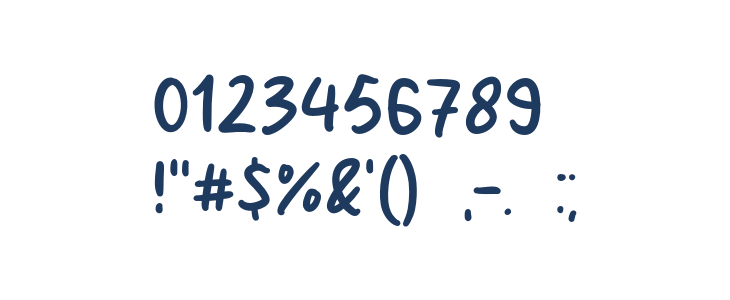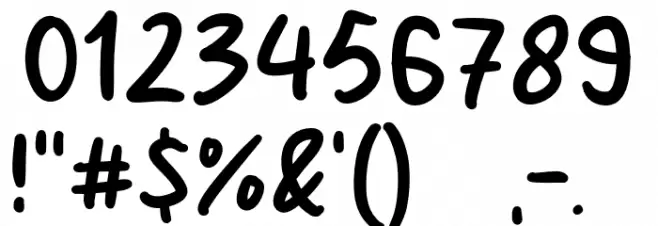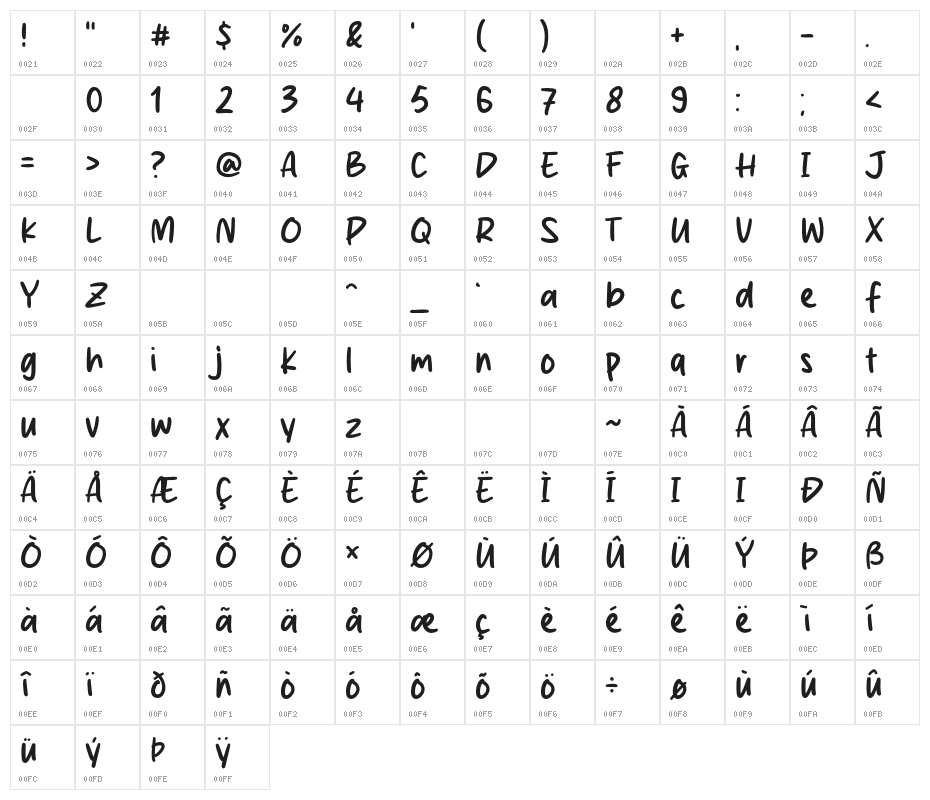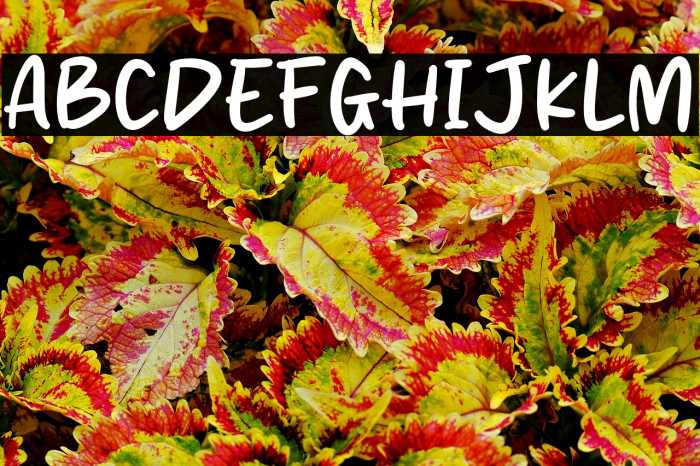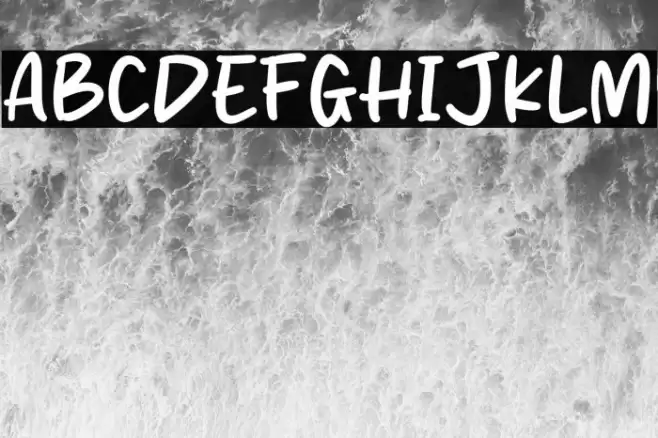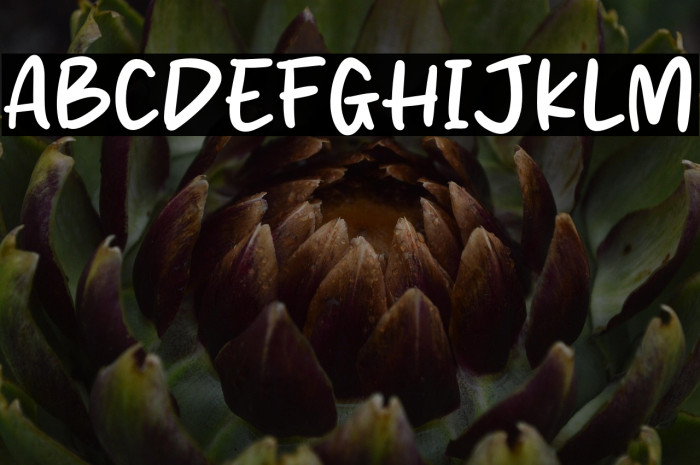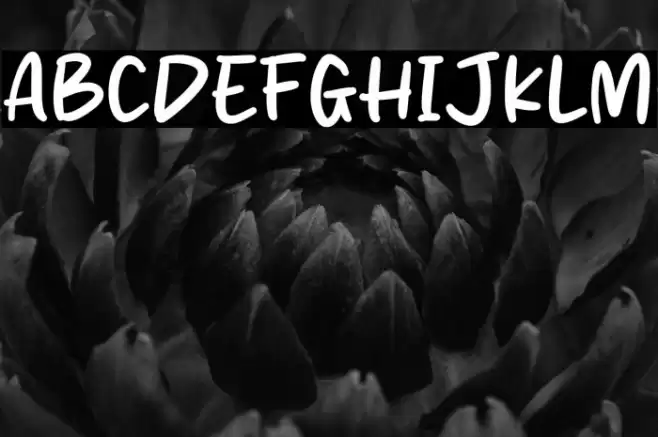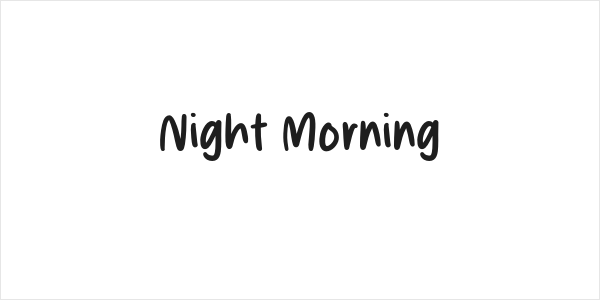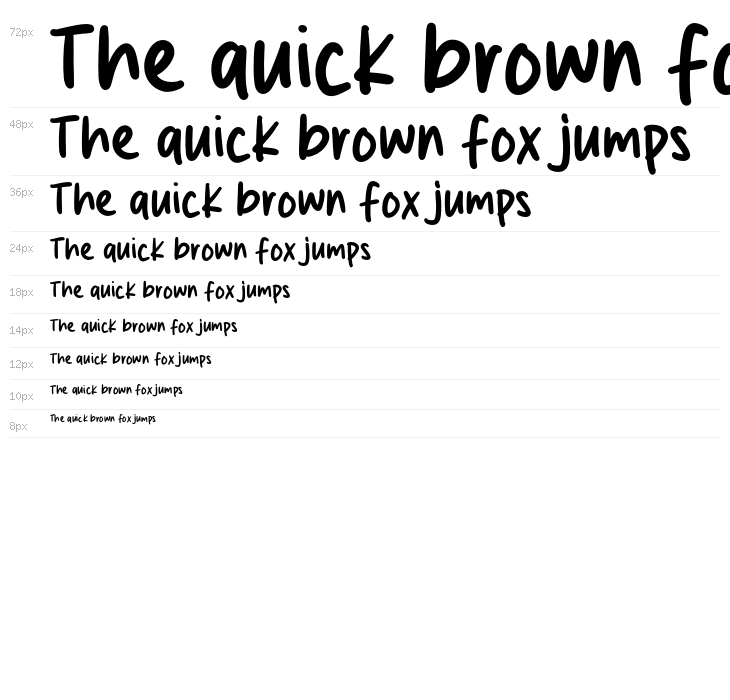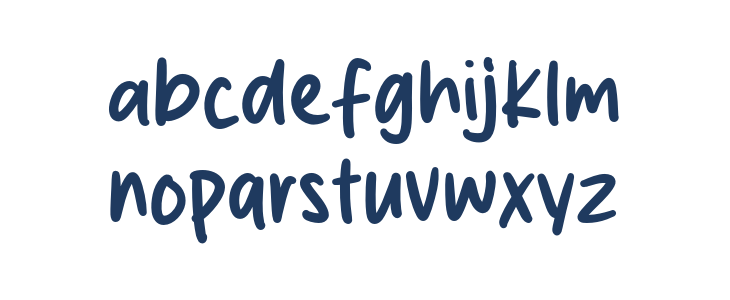
Night Morning Font
Night Morning Description
This font exudes a playful and casual handwritten style, characterized by its bold and rounded strokes. The letters are slightly slanted, giving a dynamic and lively appearance. The uppercase and lowercase characters maintain a consistent style, with a friendly and approachable feel. The numerals and special characters are equally expressive, complementing the overall aesthetic. This font is perfect for projects that require a personal touch, such as greeting cards, invitations, and informal branding. Its legibility and charm make it suitable for both digital and print media.
| Overall Style | Casual, Playful |
| Proposed Projects | Greeting cards, invitations, informal branding, children's books, social media graphics. |